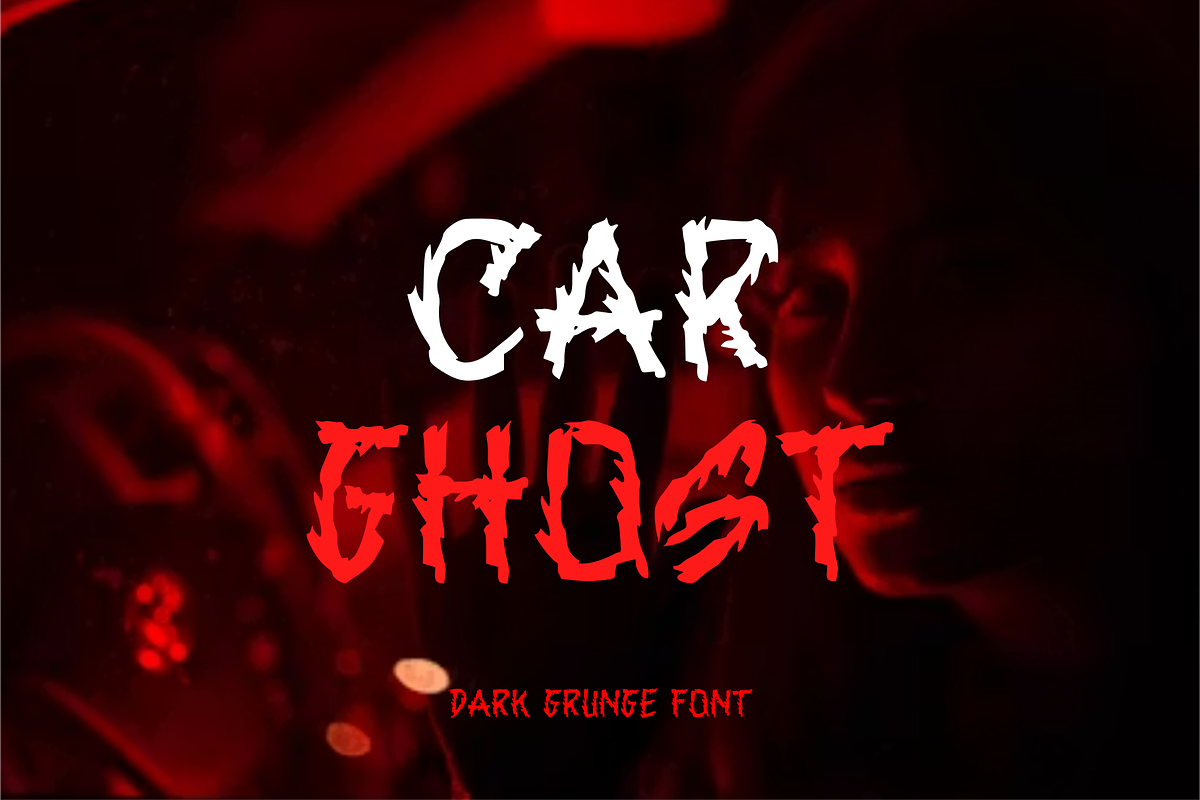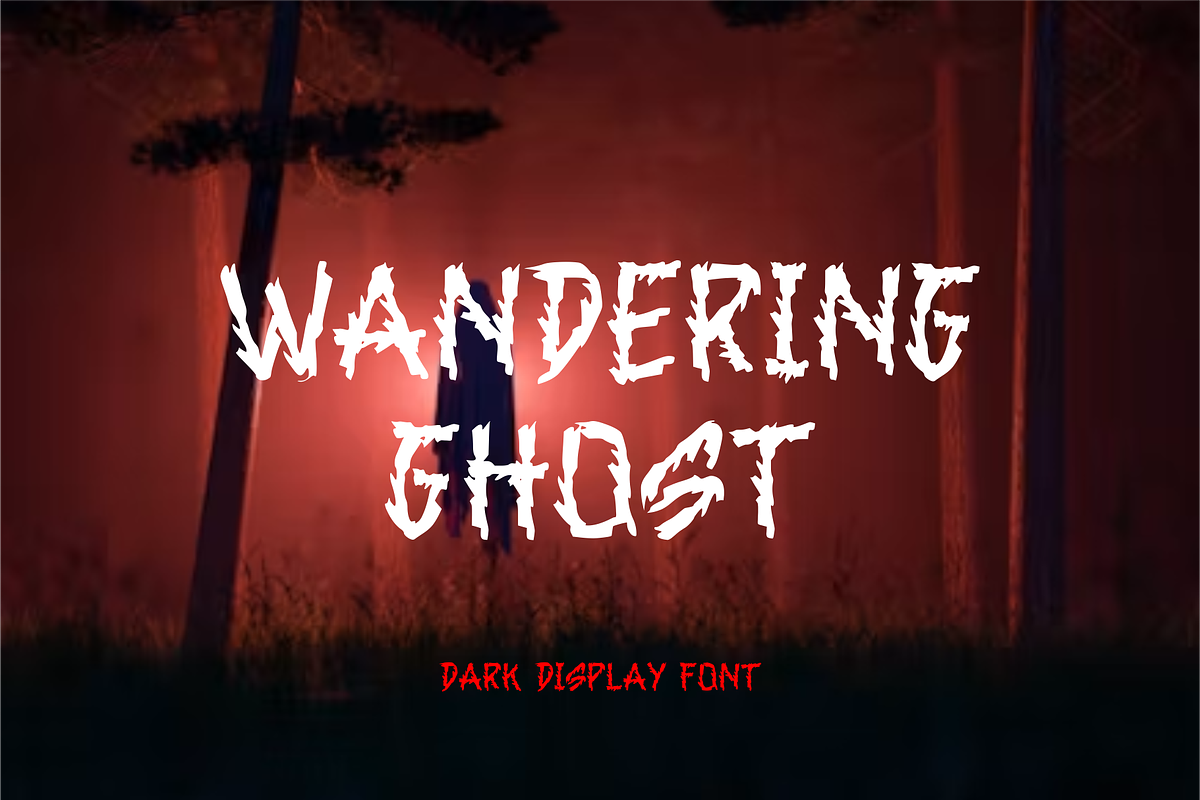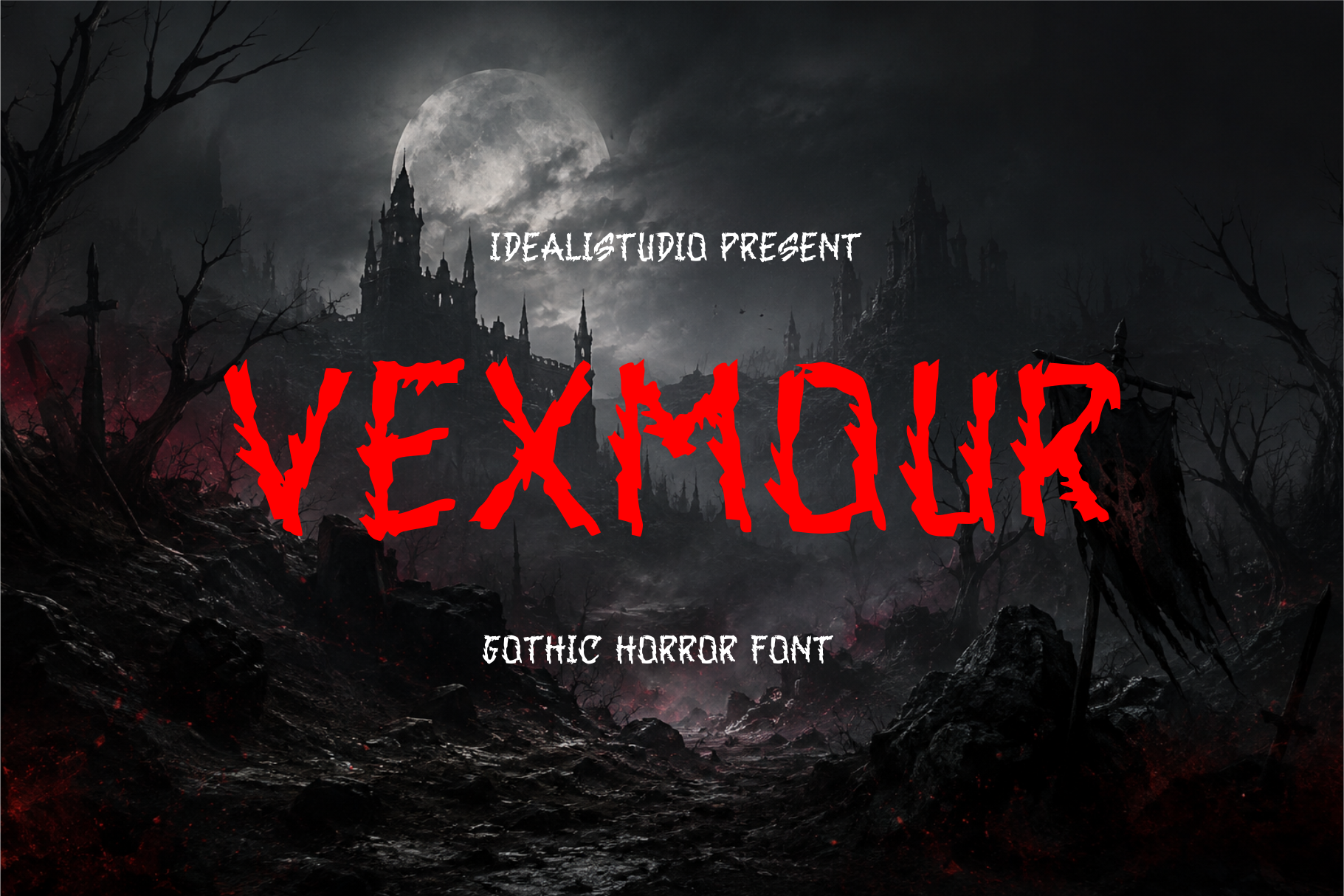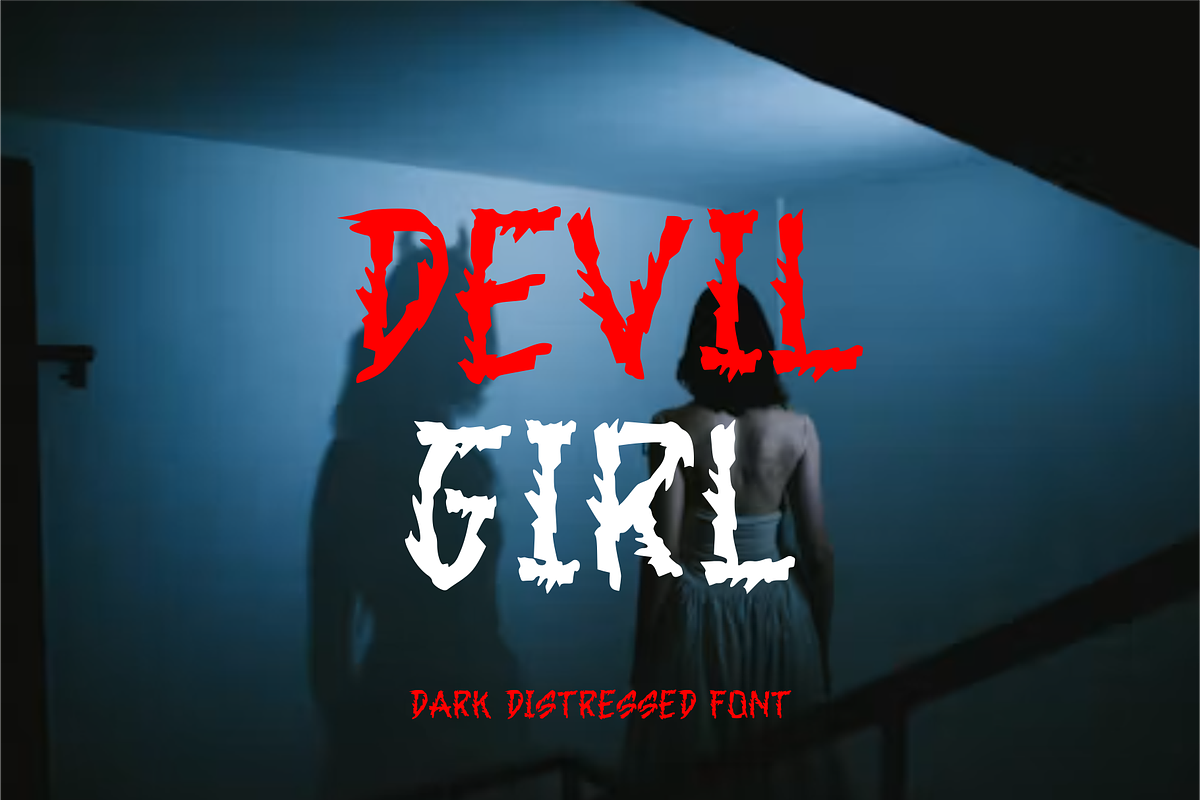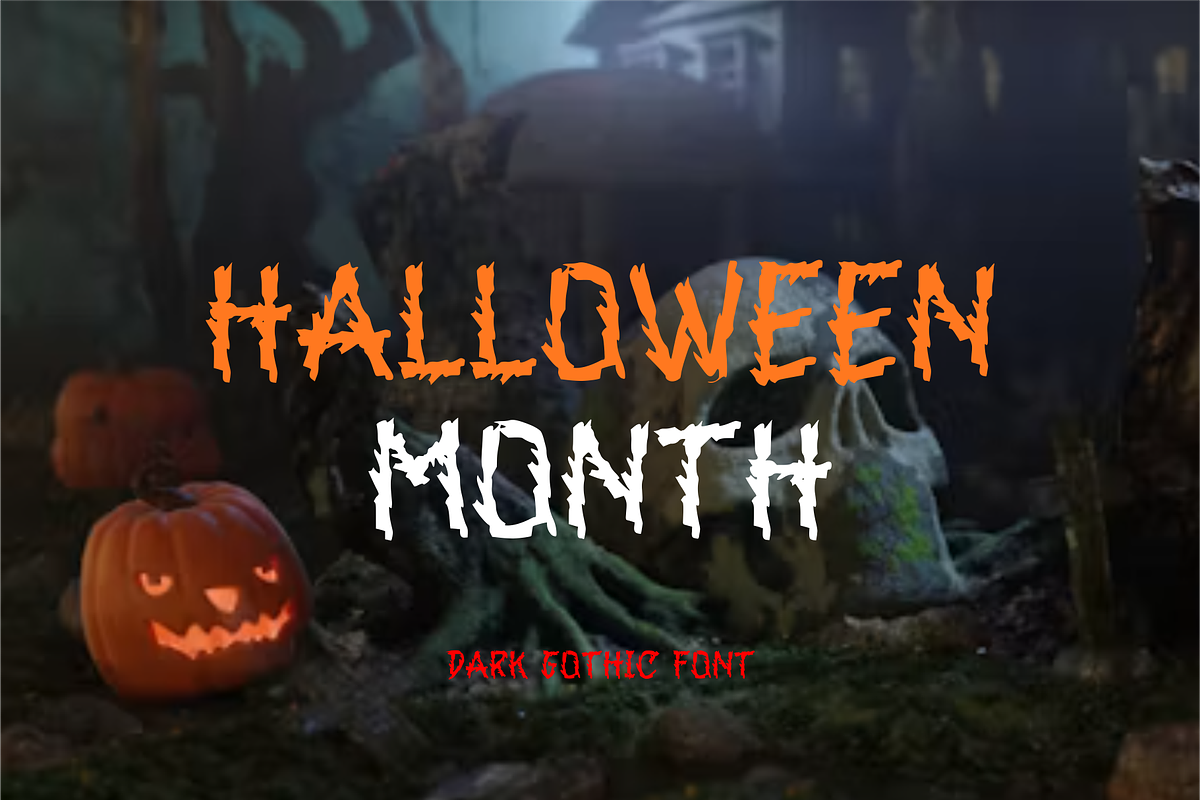
Vexmour – Gothic Horror Font
Vexmour is a dark and haunting Gothic Horror font designed to bring a mysterious, eerie, and distressed character to your designs. With its rough textures, irregular shapes, and dramatic letterforms, Vexmour creates an intense atmosphere that feels raw, sinister, and unsettling.
Perfect for horror movie posters, Halloween artwork, metal and rock branding, album covers, book covers, game titles, tattoo designs, streetwear, logos, merchandise, and dark-themed promotional graphics.
Vexmour is especially effective for bold headlines and impactful typography where you want a strong gothic and terrifying visual presence.